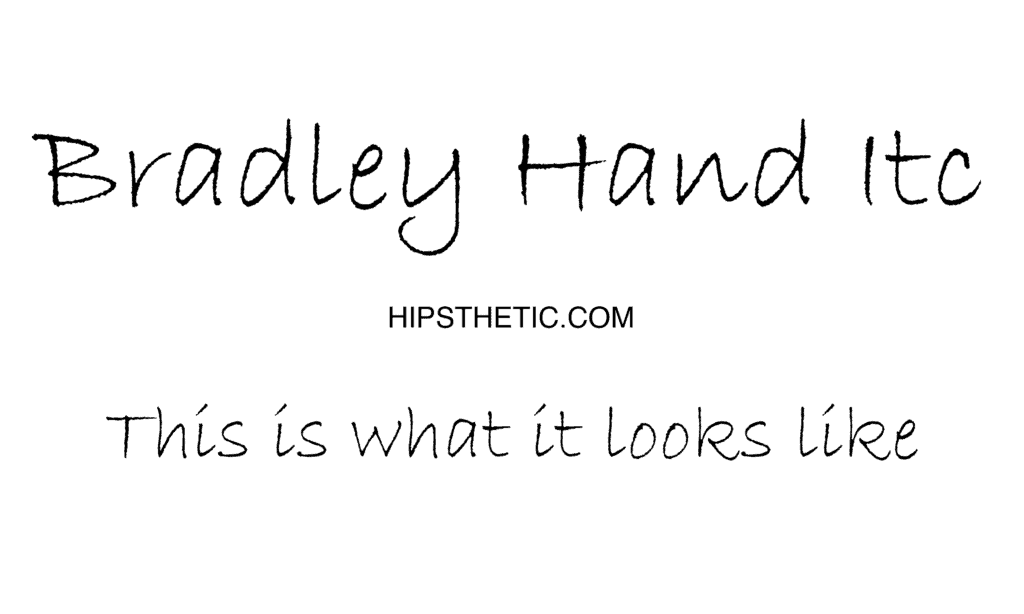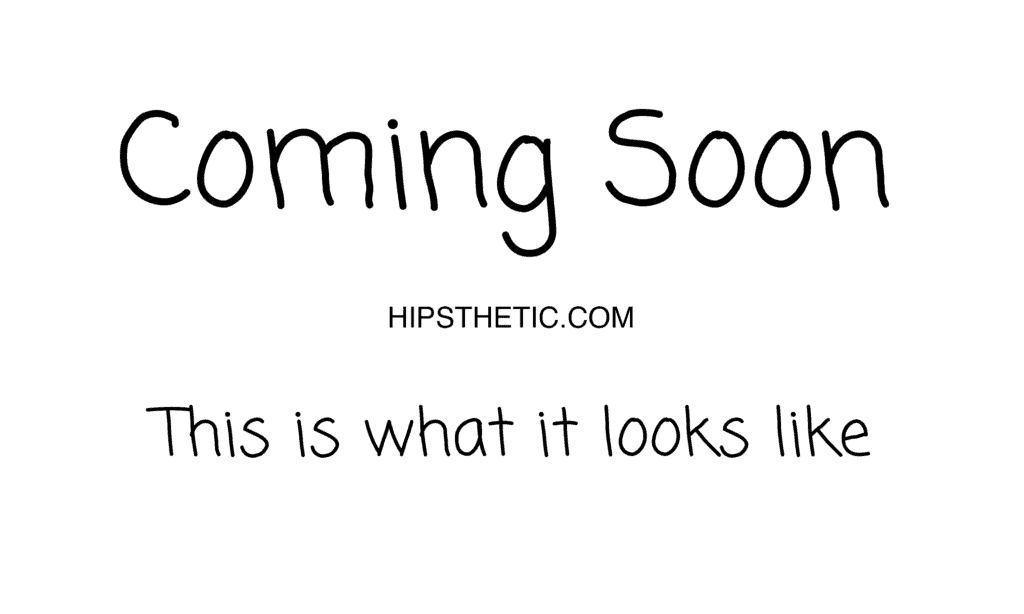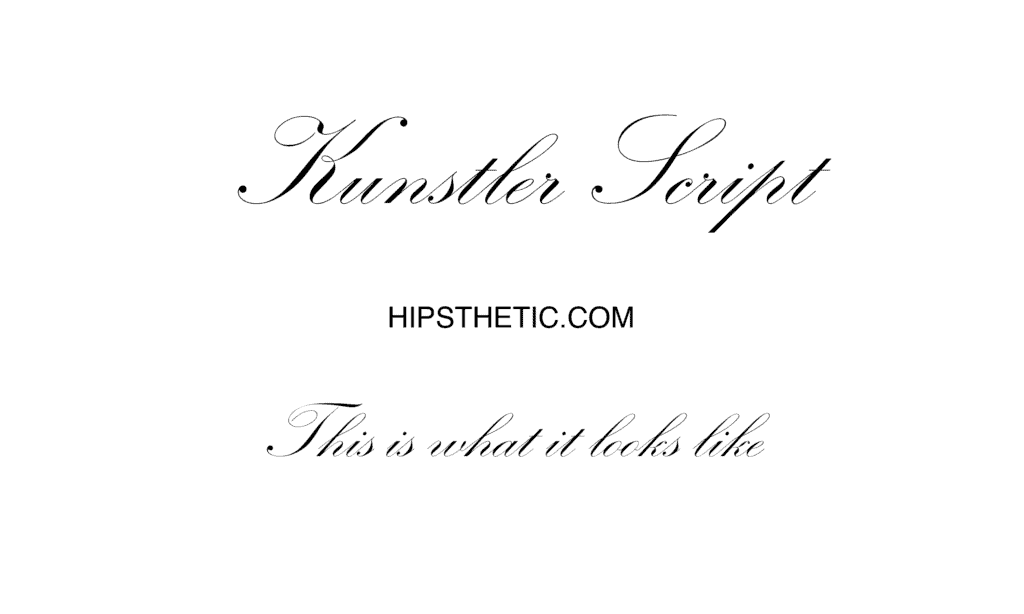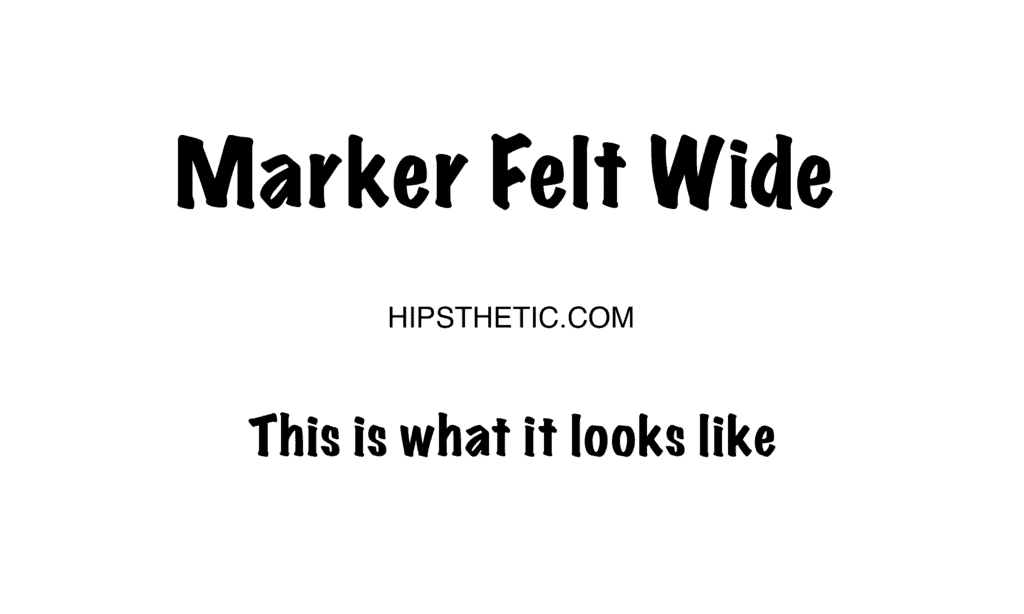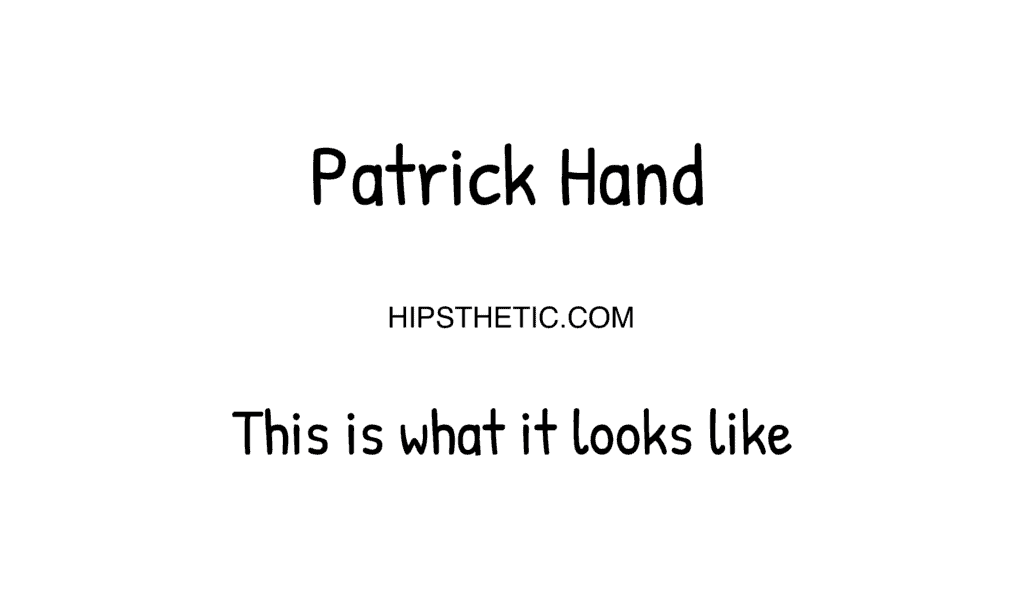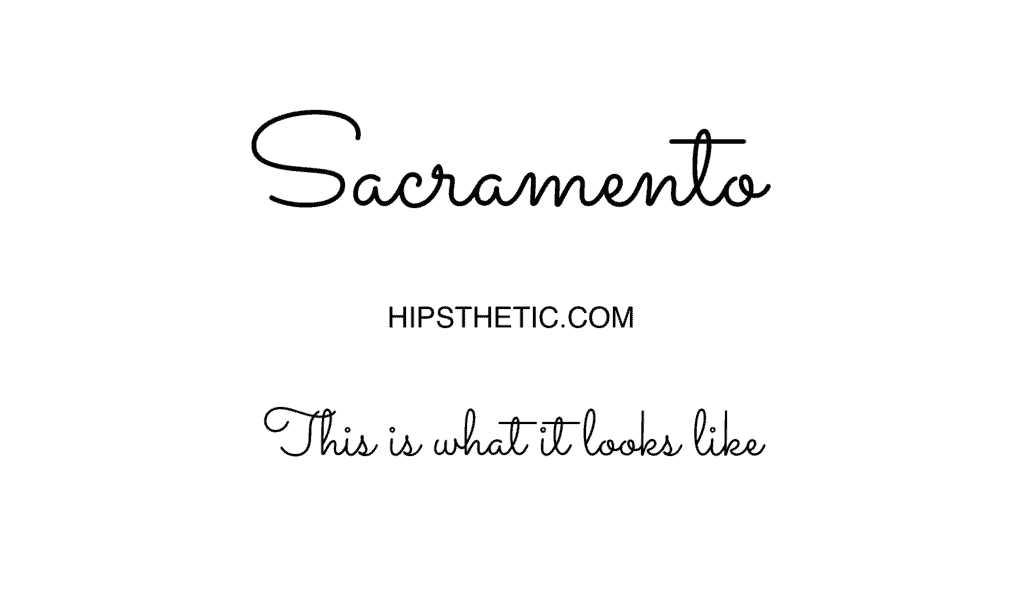
Handwriting fonts are often popular nowadays because of the casual, whimsical, and realistic look and feel that it gives to your designs, print layout, logos, or even labels. Some may think that it’s hard to get access to them, but in fact, they’re already probably available in your Microsoft Word.
If you’re wondering which fonts look like handwriting in word, well you’re in luck! To make it easier for you, we rounded up a list of fonts that look like handwriting and of course are all easily accessible and free! Check out the list below:
Handwriting Fonts in Microsoft Word
Microsoft Word is a great tool that we often use for more serious things in our day to day. What we forget is that it actually has a lot of handwriting and cursive fonts that we can use for a cute DIY project at home, or even for some nicely designed materials for your own brand. Check out our list, you might find an interesting handwritten font in Word that you’d want to use!
Sans Serif Handwriting Fonts in Word
Sans serif fonts are essential and widely used due to their modern, minimalistic style. Incorporating a handwriting sans serif font adds a personal touch, blending clean design with a sense of individuality.
Bradley Hand Font Family
The Bradley Hand font family is one of the widely popular and accessible handwriting style fonts in Microsoft Word. The font is actually heavily based on Richard Bradley’s handwriting, who is the designer and maker of the font.
Cavolini
The Cavolini font family gives this charming handwriting look using a thick pen or a thin marker that is quite familiar and easy to read. Perfect to use for a printed card with a personal touch!
Kristen Itc
Kristen ITC is a font inspired by children’s handwriting. The font’s rounded corners gives it a fun and playful look.
Modern Love Caps Font
The Modern Love Caps font is a member of the Modern Love font family. It features a handwriting style with serif elements and an all-caps design, combining the personal touch of handwriting with the elegance of serif typography.
The Hand
The Hand was inspired to be a typical handwriting font with no frills, just plain thin handwriting.
Script Handwriting Fonts in Word
Script fonts add an elegant and sophisticated touch to any design or document. Incorporating a handwriting element makes them feel more casual while maintaining their presentable and polished appearance.
Lucida Font Family
The Lucida font family is another familiar and widely accessible handwriting style font. The typeface comes in two variants, the Lucida Calligraphy and Lucida Handwriting. The former shows a formal approach with it’s calligraphy cursive style that is often used for certificates, and formal invites. On the other hand, Lucida Handwriting is more casual cursive lettering that is great for a personal touch on letters, and notes.
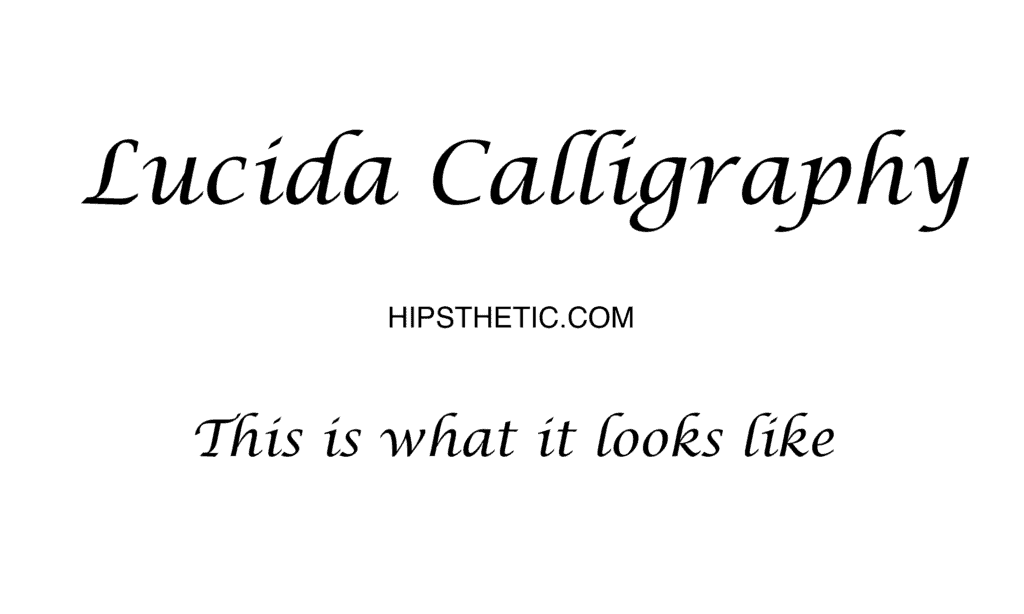
Freestyle Script
Freestyle script mimics the spontaneity of handwriting with a mix of print and cursive letters. This typeface is great to use for labels at home or for cute personalized cards.
Modern Love Font Family
This font family consists of three different variations of the font. It comes in a regular, all caps sans serif and grunge variant. They all resemble a handwritten painted look, for a cheery and playful aesthetic.
Modern Love Font Grunge